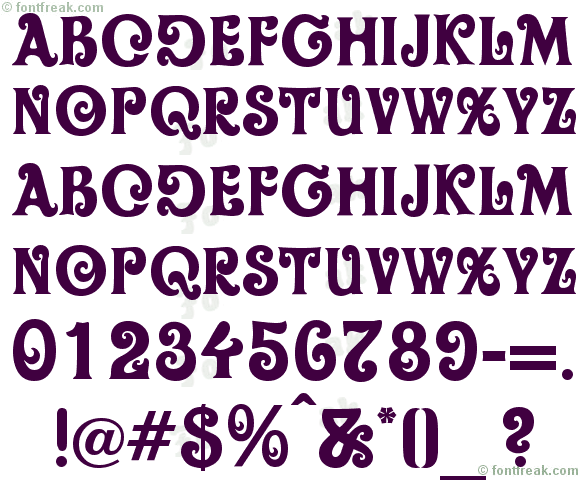
Oliver
About Oliver
The Oliver font, designed by Primafont, is a unique decorative typeface that brings a playful yet sophisticated vibe to any design project. Released in 1995 by Christine Mauerkirchner and Rainer Grunert, this freeware font has become a beloved choice among designers looking for something distinctive. Characterized by its bold stroke weight and high contrast, the Oliver font features whimsical curves and flourishes that add personality and charm. The spacing is thoughtfully arranged, ensuring legibility while maintaining a sense of artistic flair.
This versatile font is perfect for a variety of creative applications. Its playful nature makes it an excellent choice for wedding invitations, where it can convey a sense of joy and celebration. Additionally, Oliver is ideal for movie posters, lending a unique character that captures the audience's attention. Restaurant menus can also benefit from this font, as its decorative elements create an inviting atmosphere. Moreover, the Oliver font works wonderfully for branding projects, helping small business owners establish a memorable identity.
Targeting graphic designers, content creators, and small business owners, the Oliver font is a tool that can elevate any project. Its distinctive style and adaptability make it a go-to choice for those looking to stand out in a crowded marketplace.
What truly sets the Oliver font apart is its ability to blend fun and elegance seamlessly. It invites creativity while ensuring that the final design remains professional and polished. For anyone seeking to infuse their work with a touch of whimsy, the Oliver font free download is an opportunity to enhance your typography toolkit with a truly special typeface.